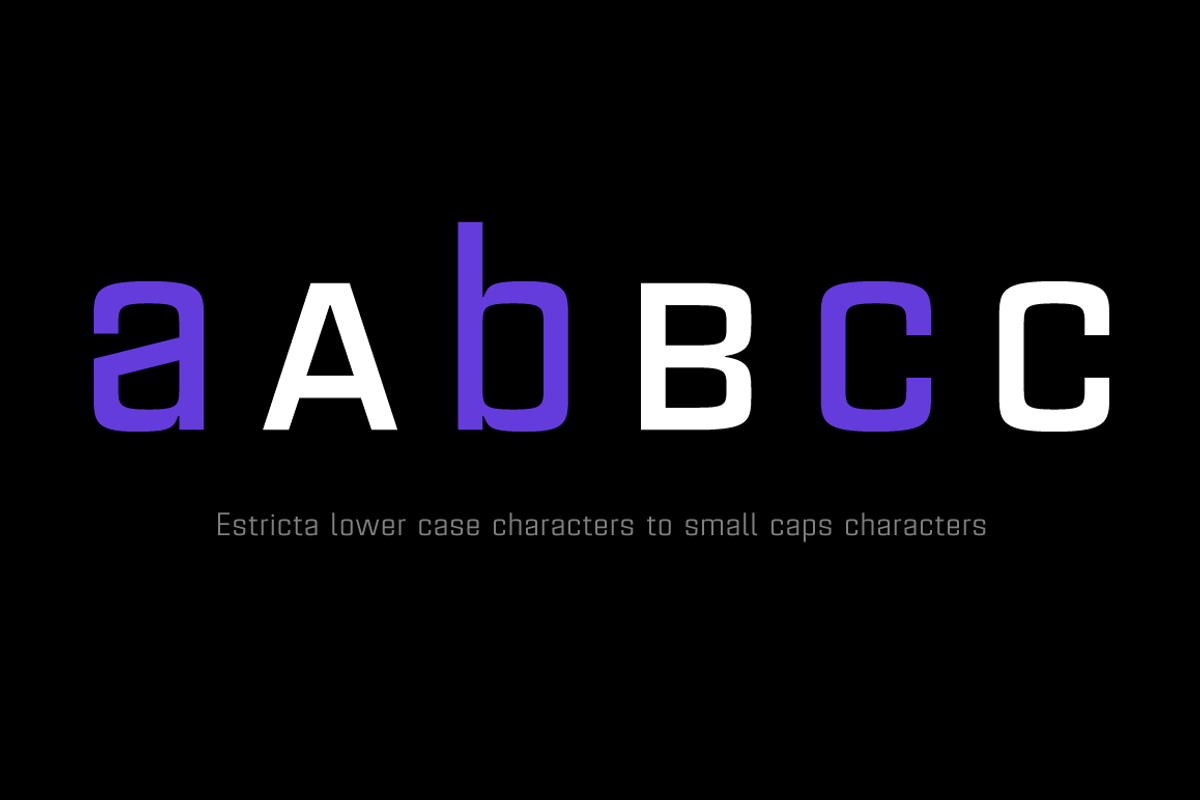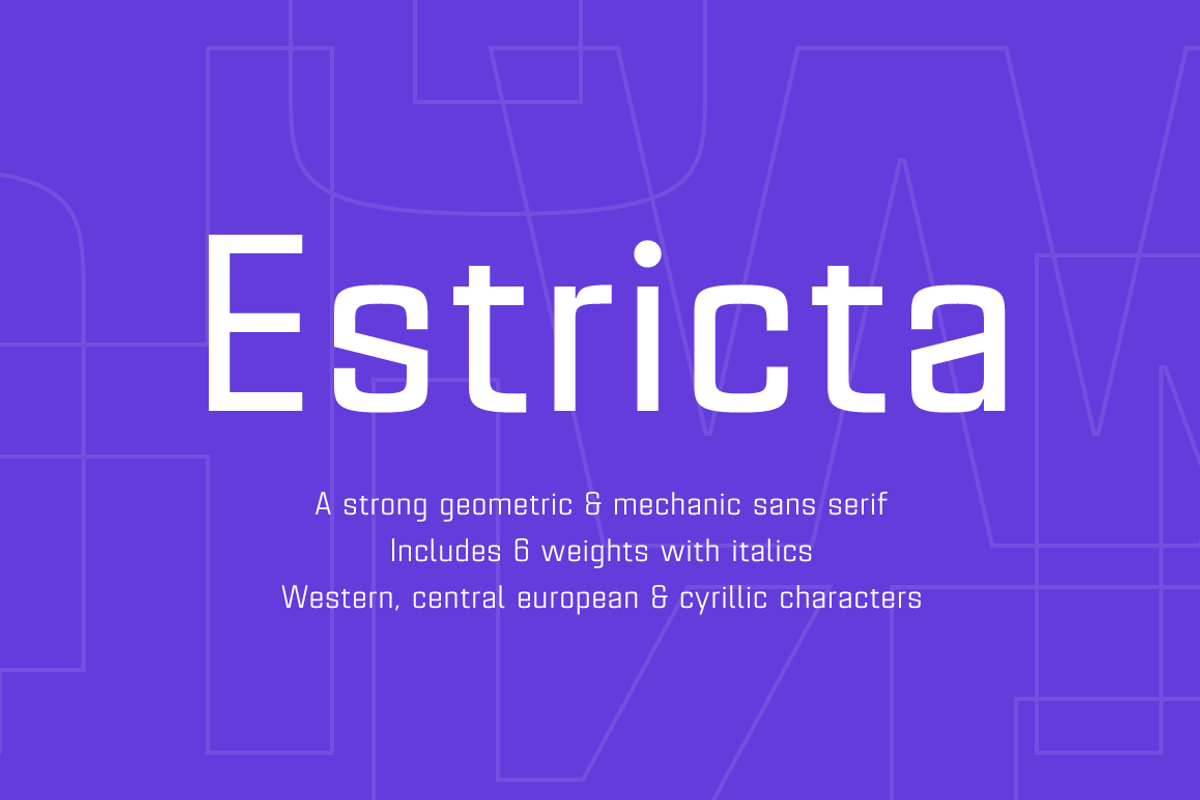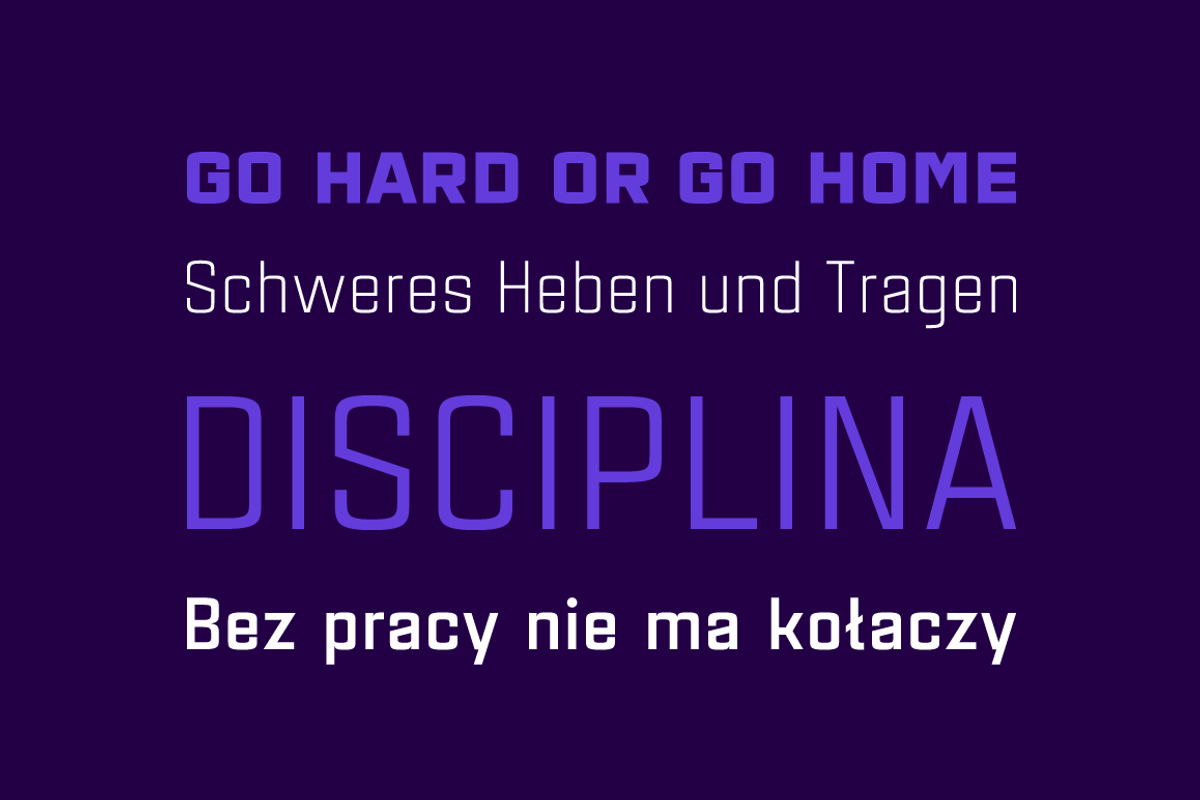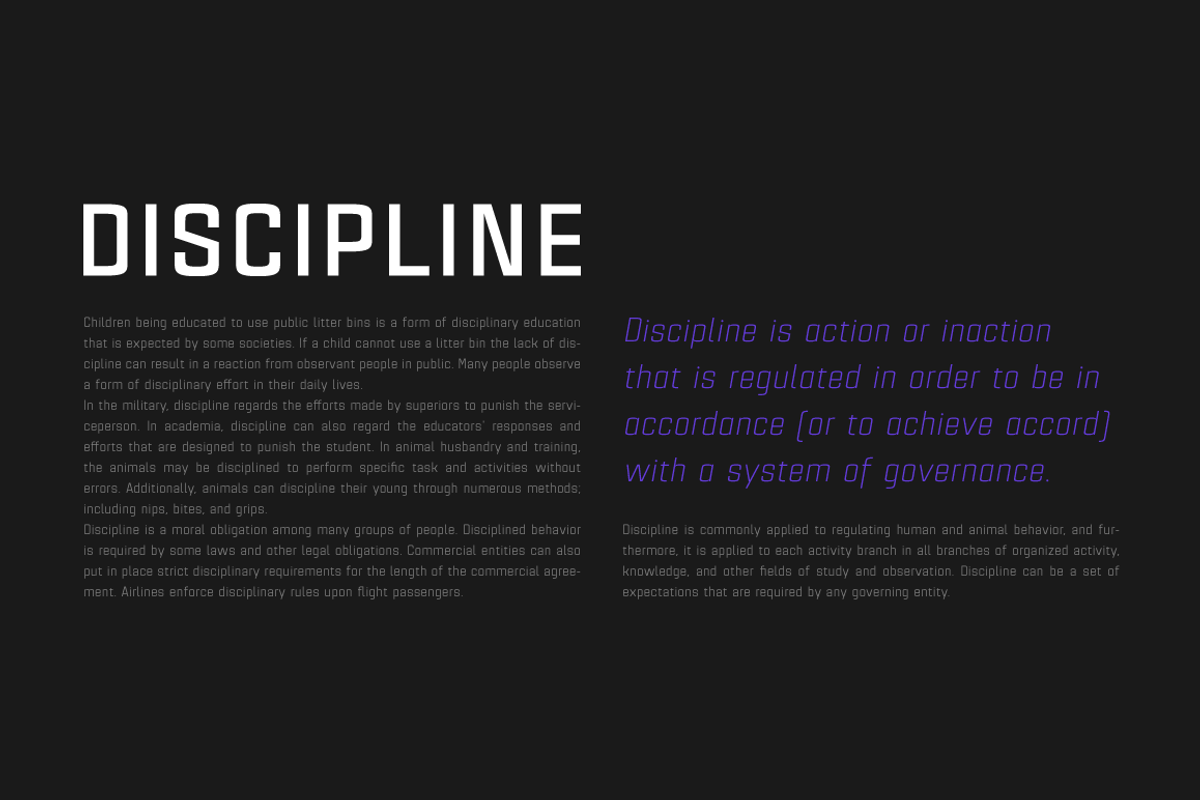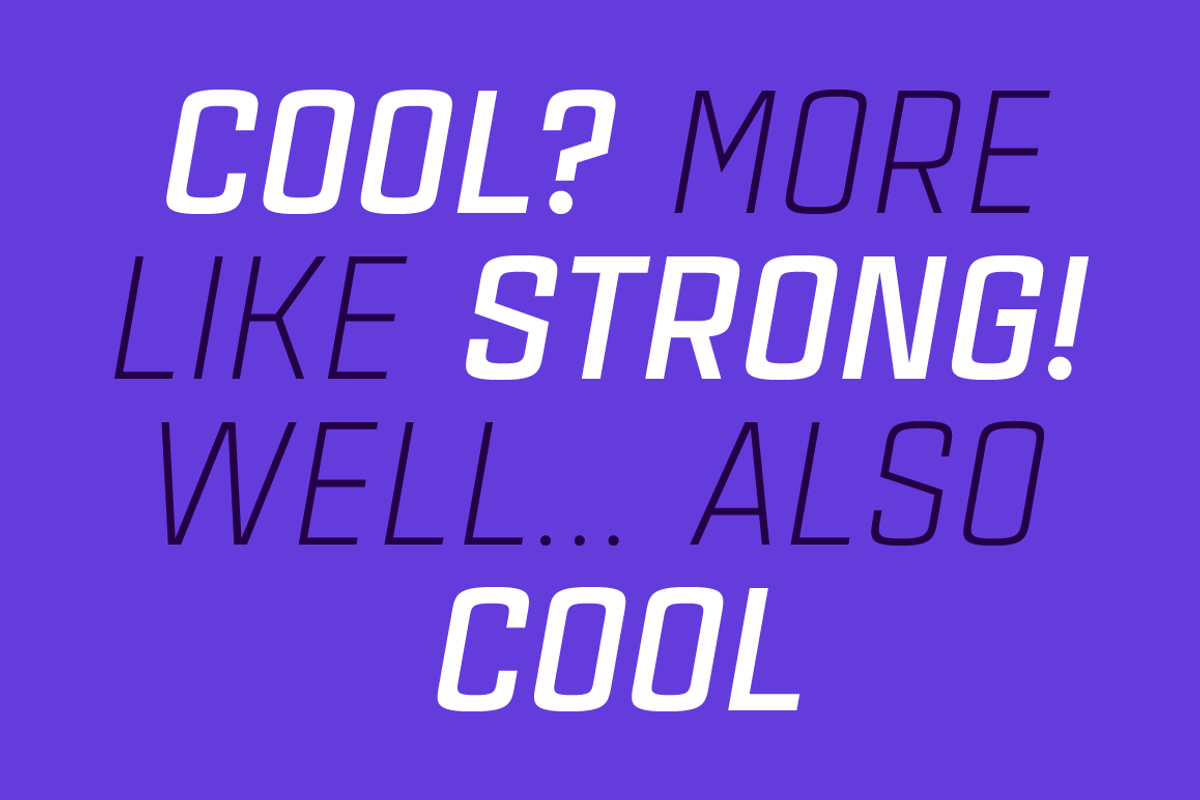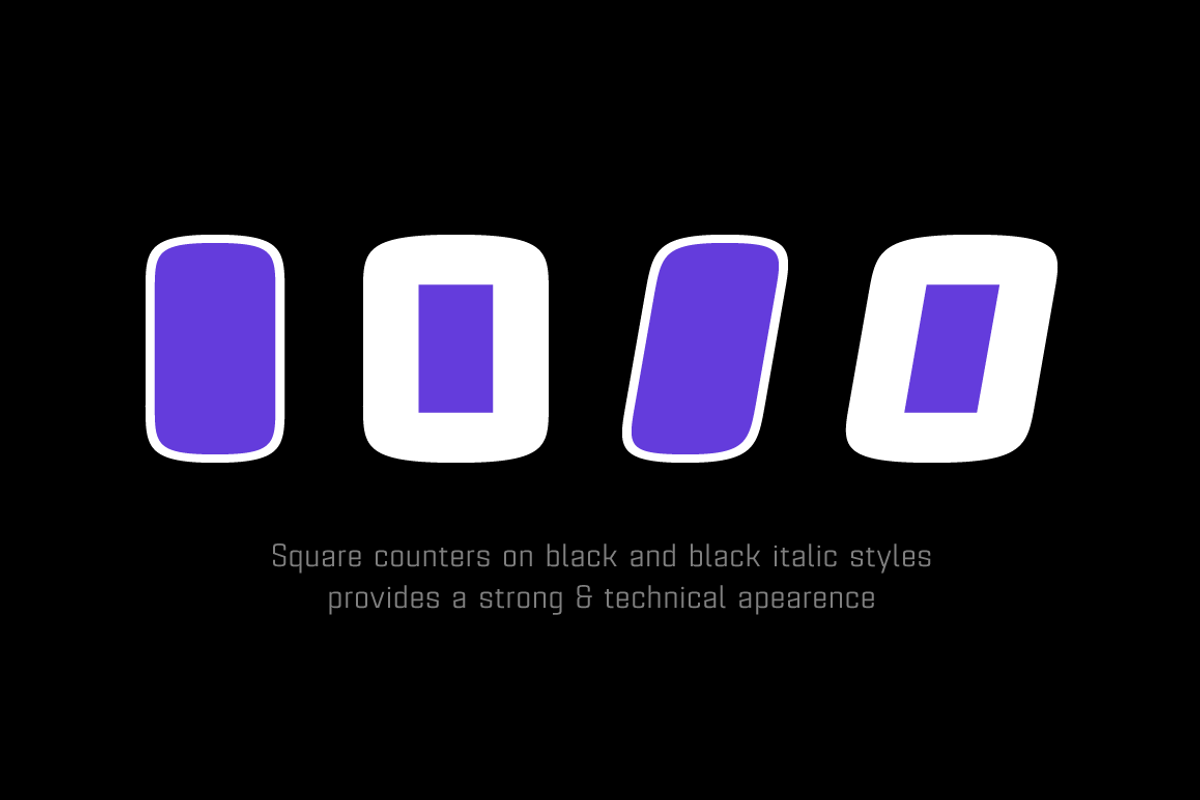
Estricta Font Family
Designer: Pablo Balcells
Design date: 2017
Estricta font family has been designed for Graviton Font Foundry by Pablo Balcells in 2017. It is a sans serif typeface with a geometrical and mechanic appearence, its sharp, angular edges provide a strong and solid design. It has been conceived to be most suitable for short and middle length text blocks, as well as on all sized headlines.
Estricta consists of 12 styles. Each containing small caps and glyph coverage for several languages.